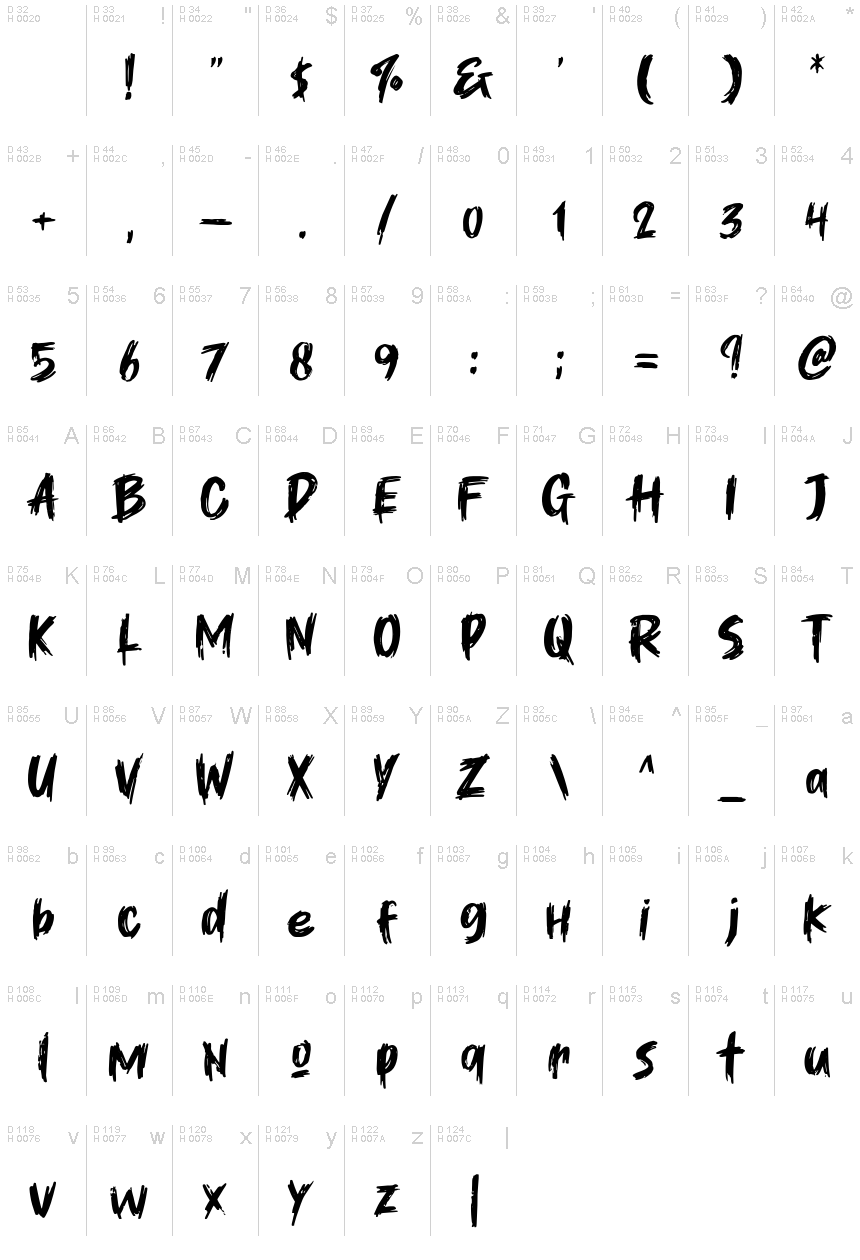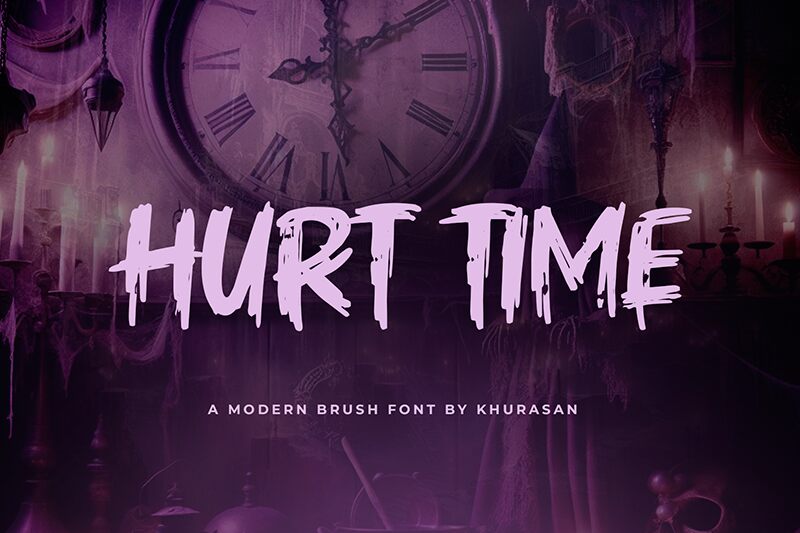
Hurt Time
Hurt Time, a captivating brush font crafted by Khurasan, exudes a raw, expressive energy that commands attention. This dynamic typeface boasts bold, organic strokes that seamlessly blend together, creating a sense of movement and depth. The uneven, hand-drawn lines evoke a raw, emotive quality, conveying a striking visual impact that resonates with the viewer.
The versatility of Hurt Time shines through its ability to adapt to diverse design contexts. Its bold, striking appearance makes it an excellent choice for headlines, logos, and impactful typographic treatments. Whether in editorial design, branding, or creative projects, Hurt Time's unique character can lend a distinctive flair that leaves a lasting impression.